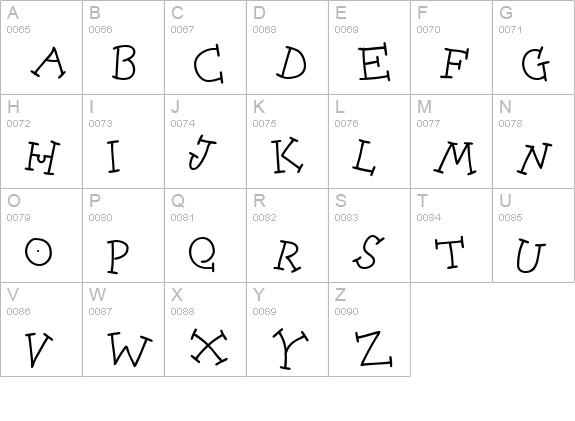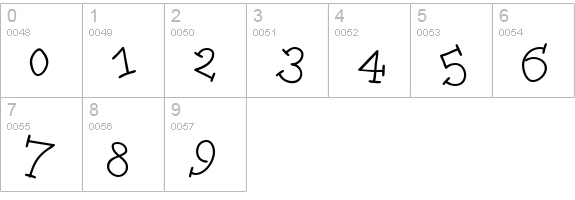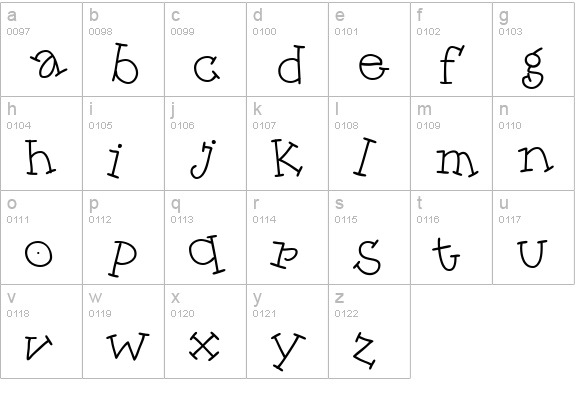
AIDancingEgypt Font Details
Introducing AIDancingEgypt font, a captivating and dynamic typeface that brings a touch of elegance and sophistication to any design project. This unique font combines intricate Egyptian-inspired motifs with a modern, dance-like flair, creating a harmonious blend of tradition and innovation. AIDancingEgypt font is perfect for adding a distinctive and eye-catching element to your branding, advertising, or editorial designs. Its flowing lines and graceful curves make it ideal for projects that require a touch of artistic flair and personality. Best of all, AIDancingEgypt font is completely free to download at FontsMarket.com. This means you can easily incorporate this stunning font into your projects without any additional cost. Don't miss out on this opportunity to elevate your designs with the beauty and charm of AIDancingEgypt font. Download it today and let your creativity shine!